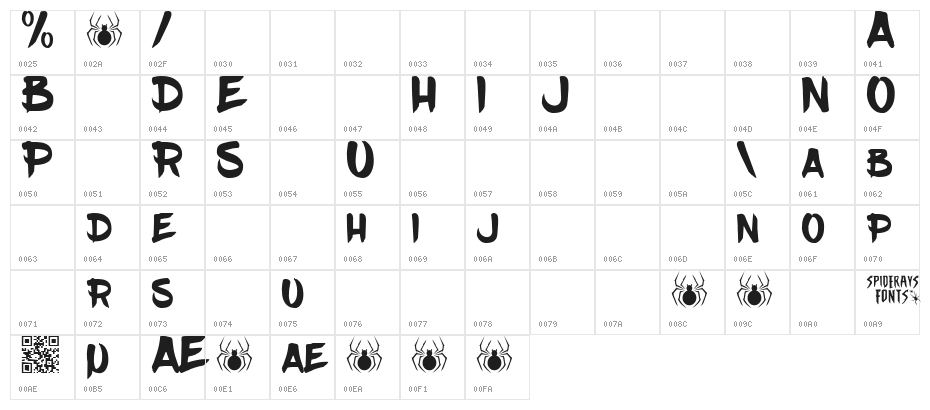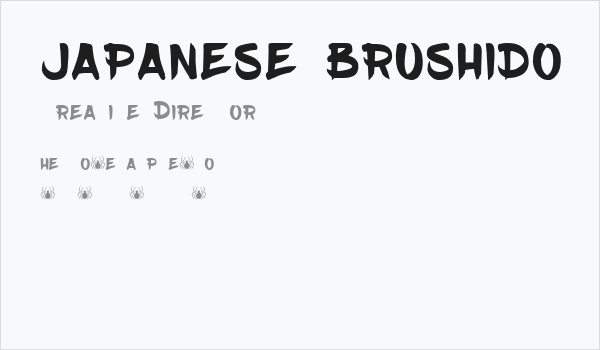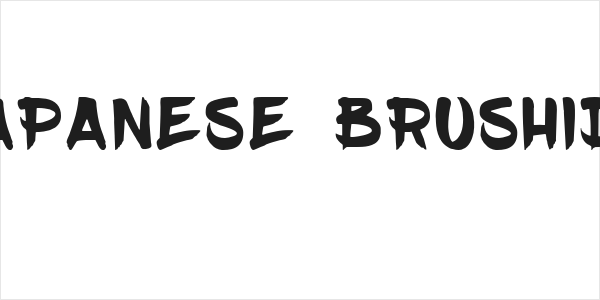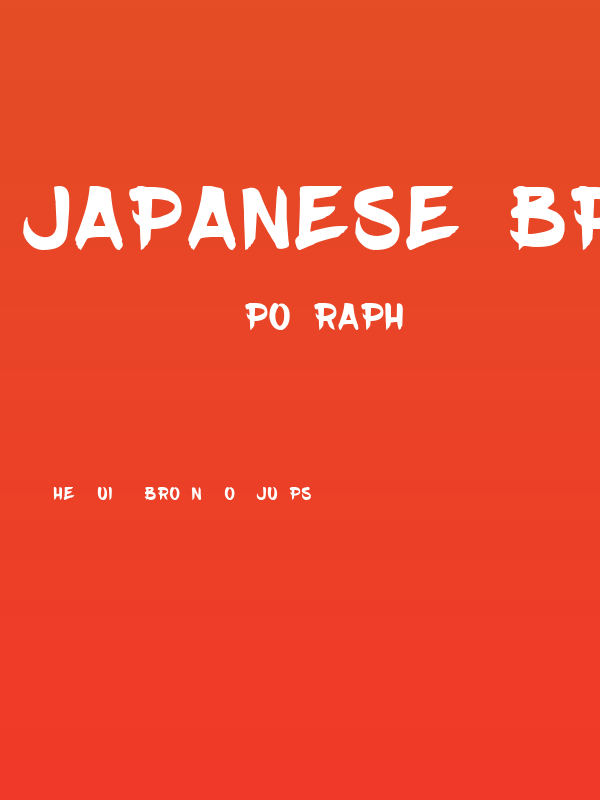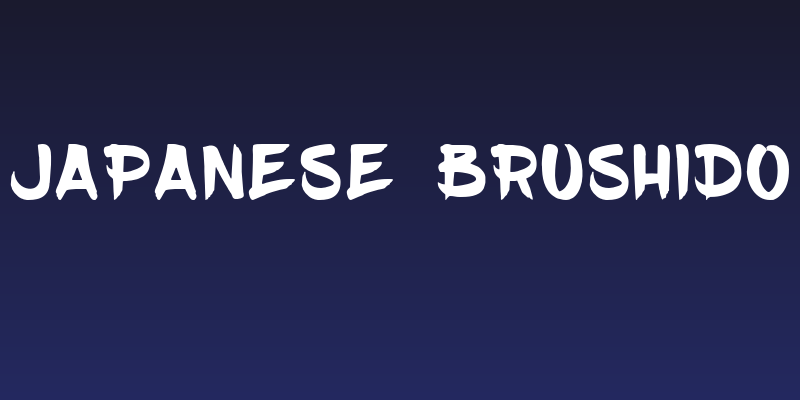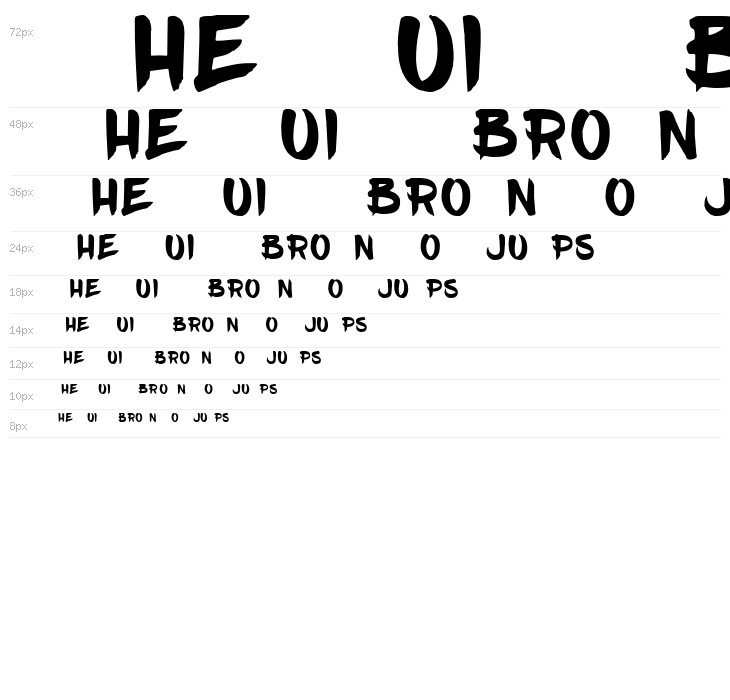
JAPANESE BRUSHIDO Font
JAPANESE BRUSHIDO Description
This font features a bold, brush-like style that evokes a sense of traditional Japanese calligraphy. The strokes are dynamic and fluid, with varying thickness that adds a sense of movement and energy. The characters are slightly irregular, giving them a handcrafted appearance. This font is highly decorative, making it suitable for projects that require a strong visual impact. The unique style captures an artistic and cultural essence, ideal for thematic designs.
JAPANESE BRUSHIDO
| Proposed Projects | Ideal for posters, branding, packaging, and any project that requires a cultural or artistic flair. |